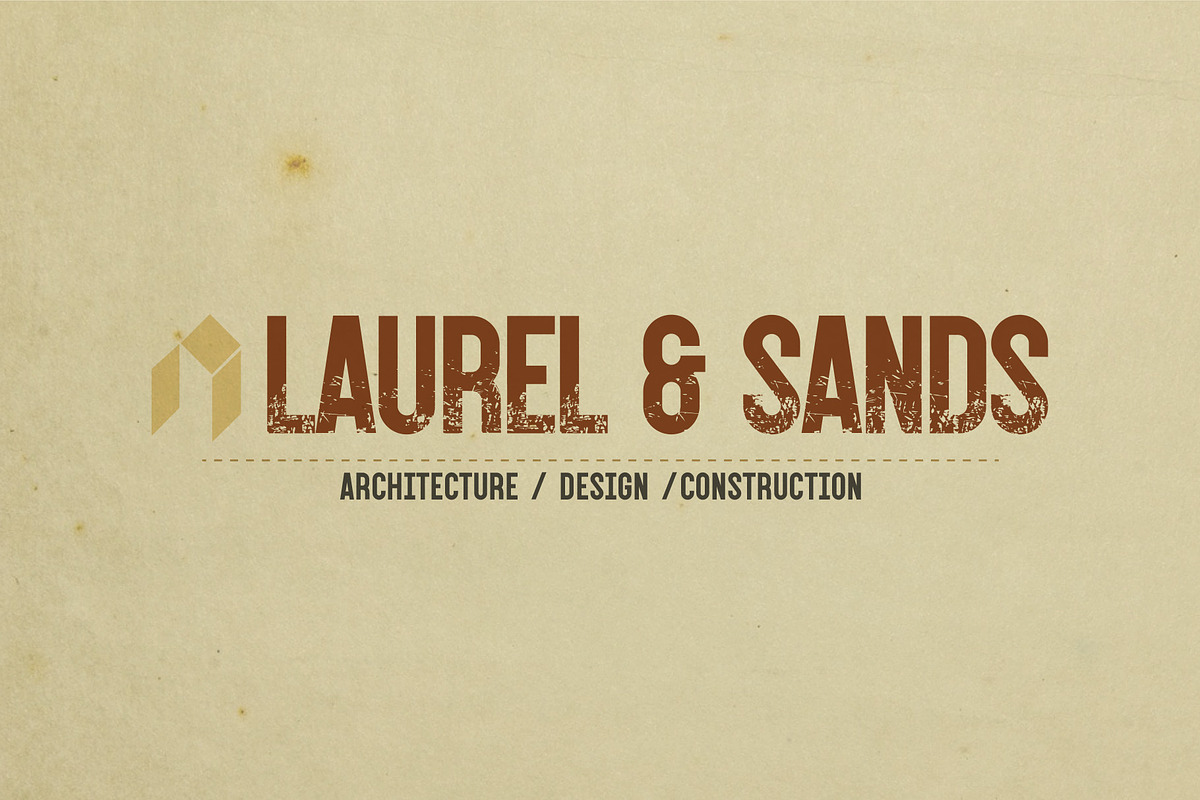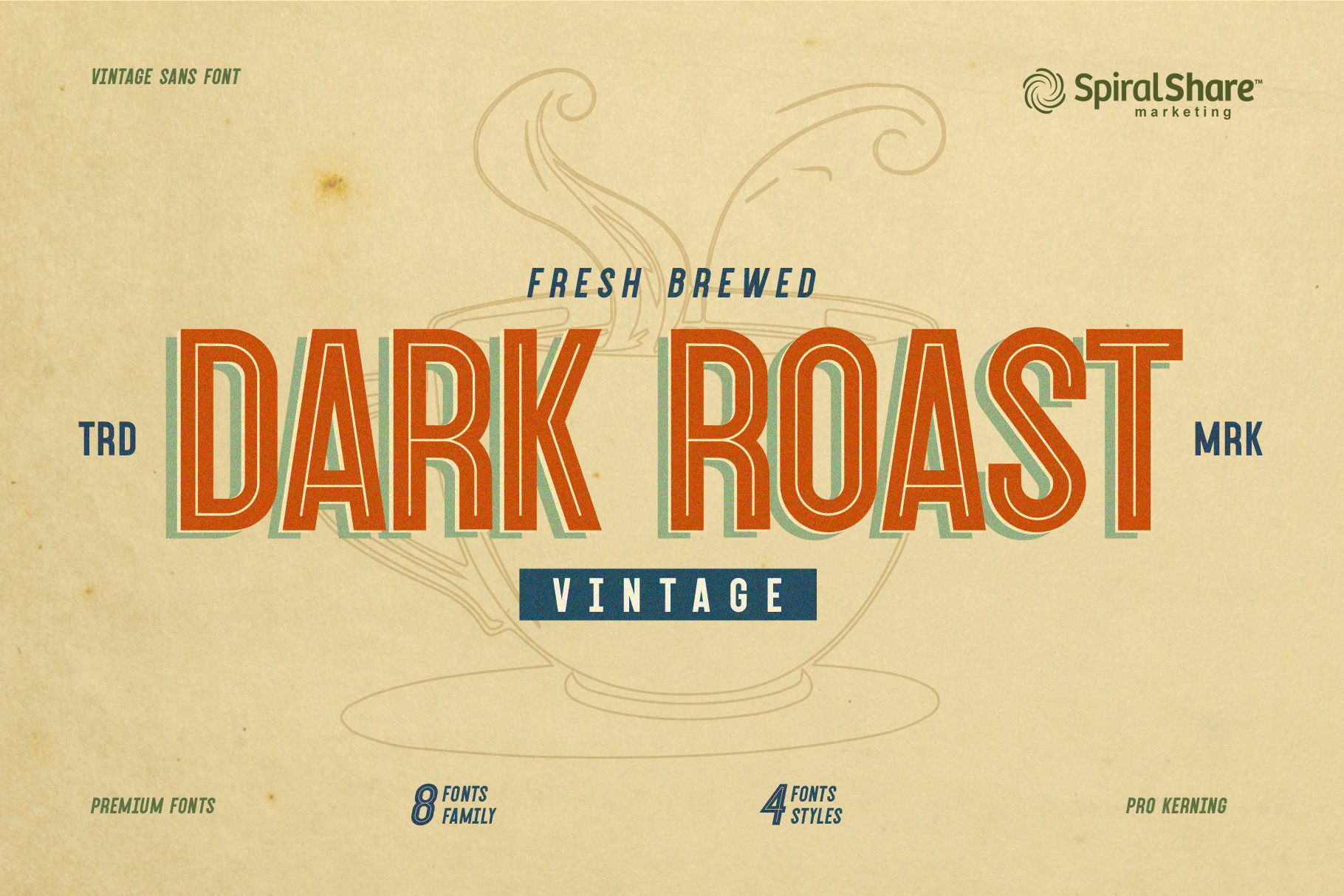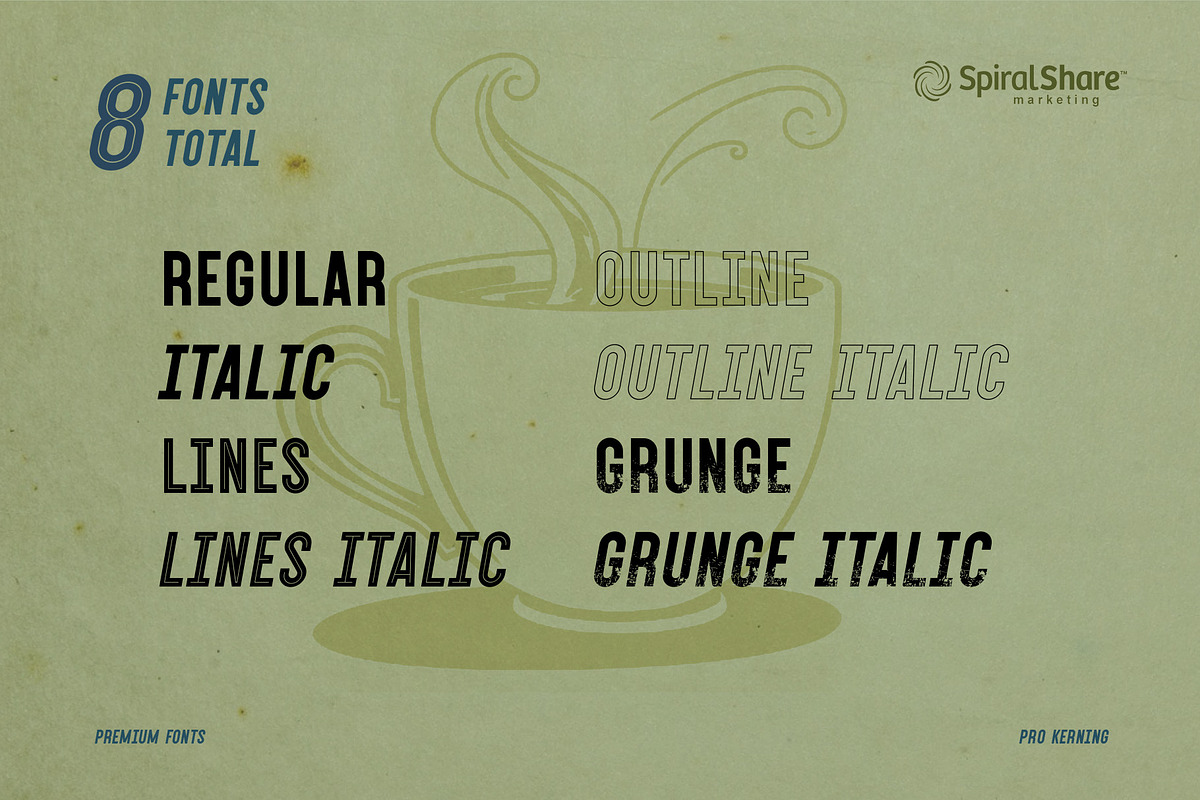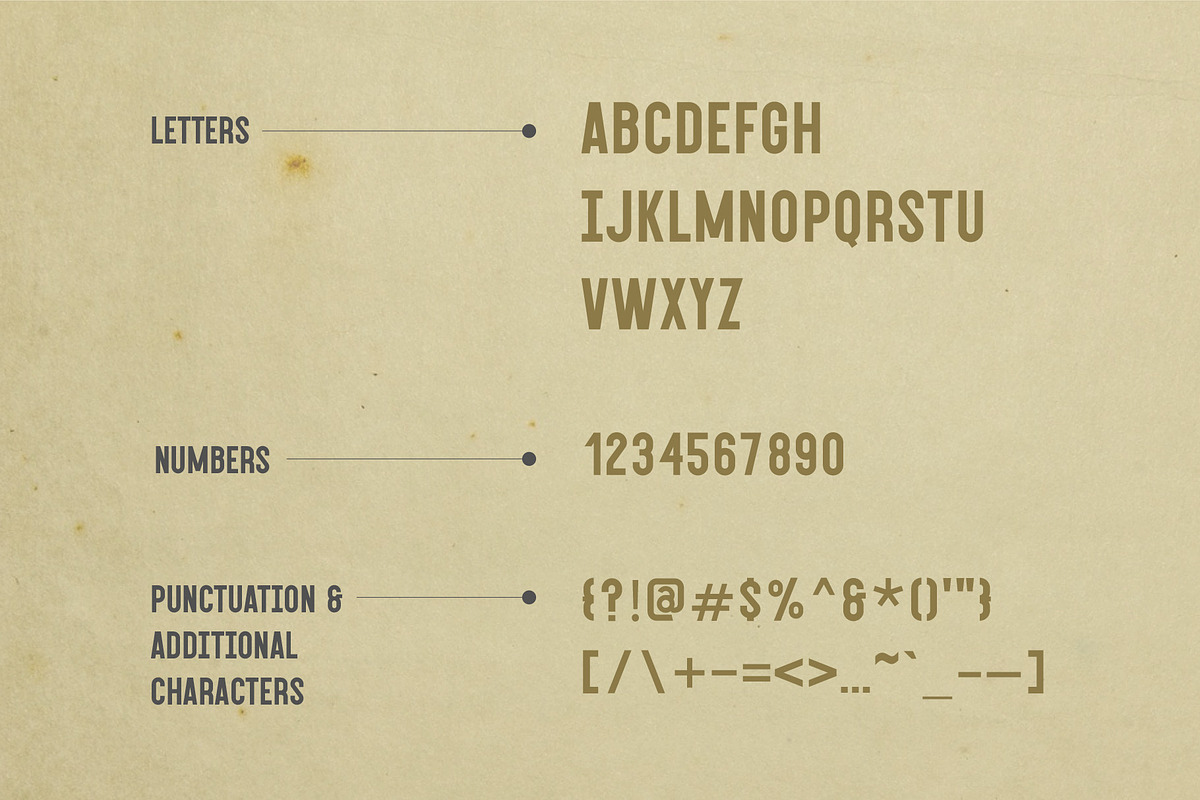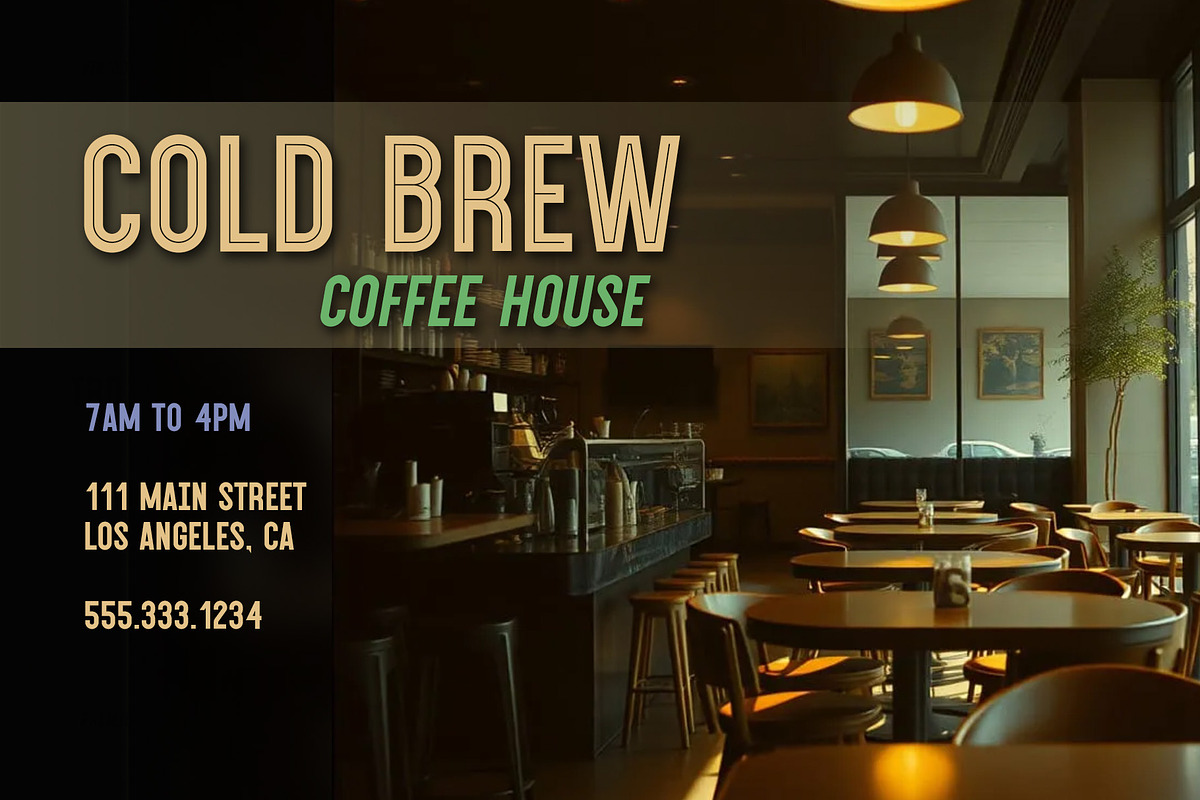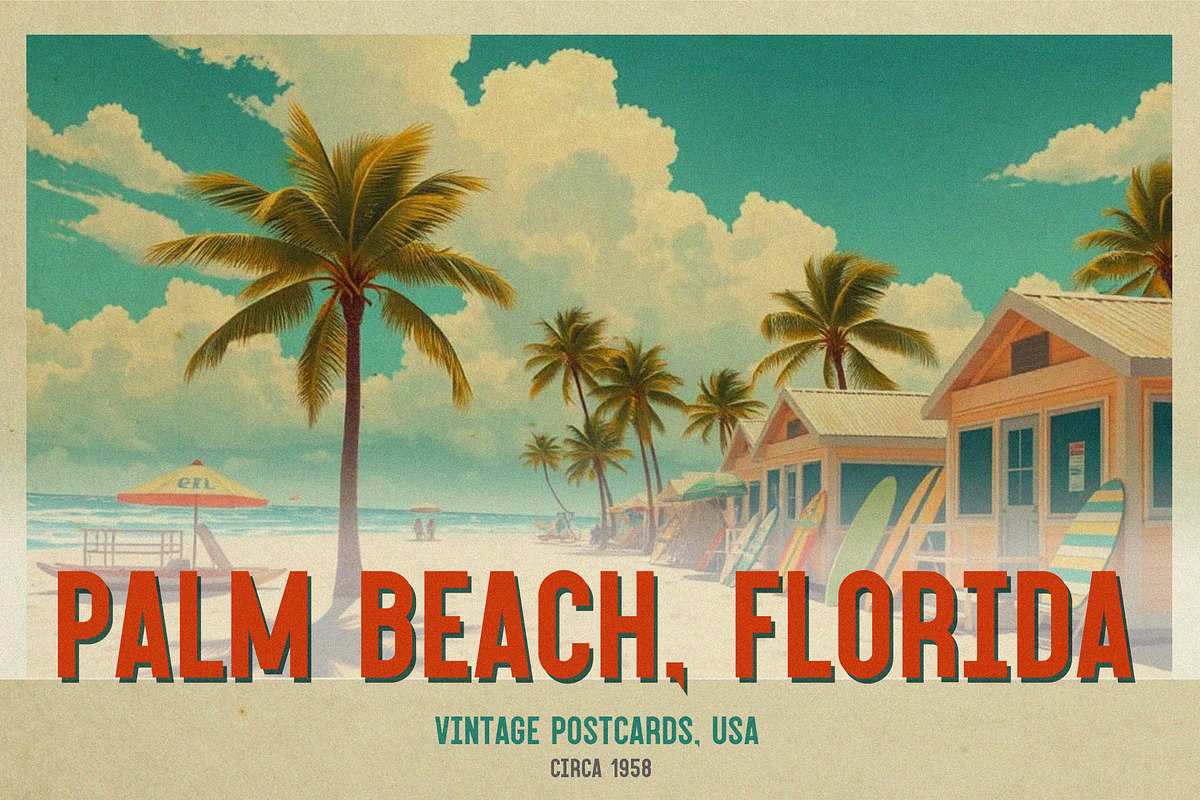
Dark Roast Vintage Modern Font
Introducing "DARK ROAST" – A Bold Blend of Vintage Charm and Modern Edge
Brew up bold designs with Dark Roast, a versatile vintage-inspired font set that’s rich in character and brimming with personality. Perfect for logos, posters, branding, packaging, embroidery, t shirt, promotion, decoration, stamp, label, special offer and more, this handcrafted typeface brings a touch of nostalgia with a contemporary twist.
Dark Roast features 8 distinct styles to fuel your creativity:
- ☕ Regular – Clean and timeless for any project.
- ☕ Italic – Adds a dynamic, slanted flair.
- ☕ Lines – Sleek and stylish, ideal for headlines and accents.
- ☕ Lines Italic – A sharp, angled variation of the linear style.
- ☕ Grunge – Rugged and weathered for a raw, vintage feel.
- ☕ Grunge Italic – Bold and gritty with an energetic slant.
- ☕ Outlines – A hollowed look for striking text effects.
- ☕ Outlines Italic – Slanted outlines for added movement and impact.
Whether you're crafting rustic branding for a coffee shop, vintage-inspired posters, or bold logos that demand attention, Dark Roast delivers the perfect blend of grit and elegance.
Pour your imagination into every project—let Dark Roast do the talking.